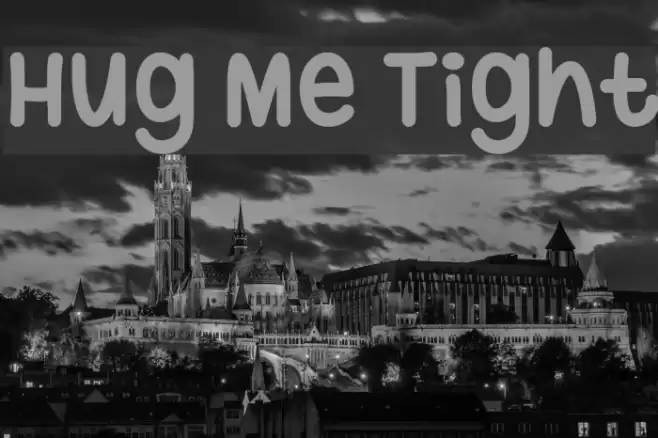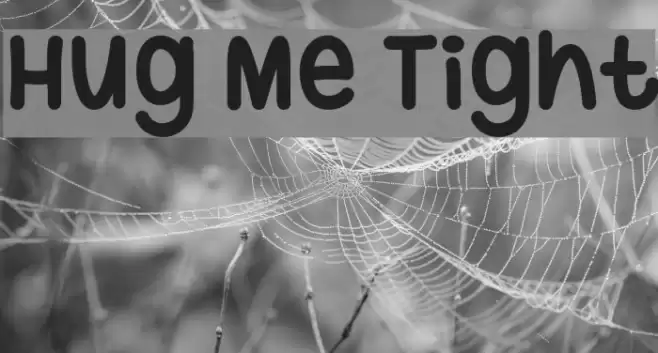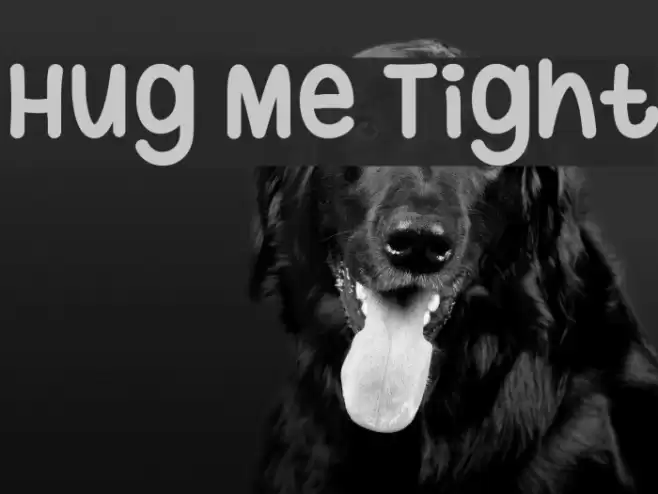
Hug Me Tight Font
Hug Me Tight Description
This playful and rounded font exudes a friendly and approachable vibe, characterized by its bold and smooth curves. Each letter is crafted with a consistent stroke weight, giving it a uniform appearance. The uppercase and lowercase letters maintain a cohesive style, with the lowercase letters slightly more rounded and compact. The numerals and special characters follow the same design principles, ensuring a harmonious look across all characters. The font's overall appearance is casual and inviting, making it suitable for projects that aim to convey warmth and friendliness.
A playful, rounded font with bold, smooth curves and a friendly vibe from Uncategorized fonts.
- Proposed Projects: Ideal for children's books, playful branding, greeting cards, and casual invitations.
- Overall Style: Playful